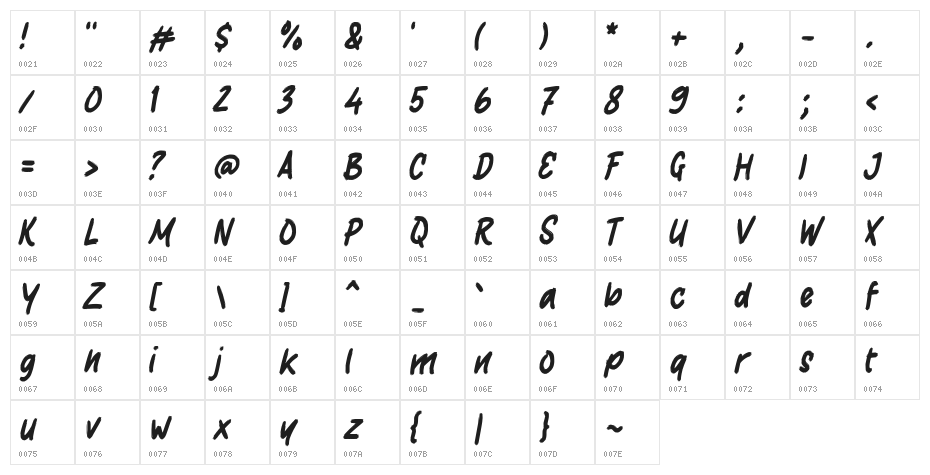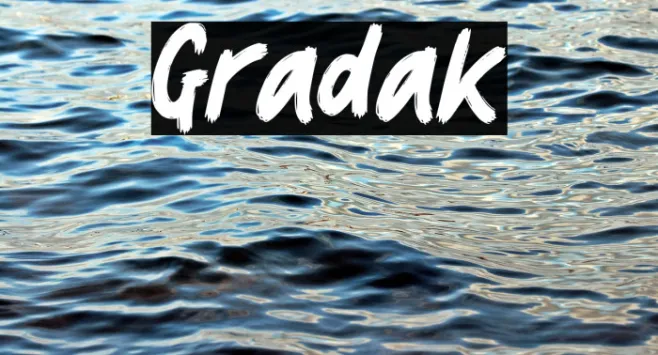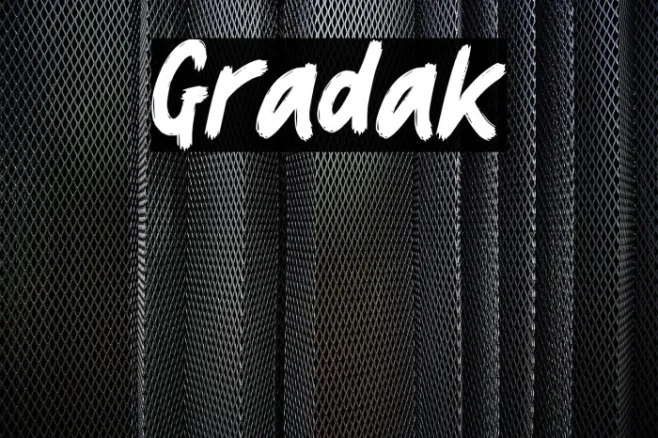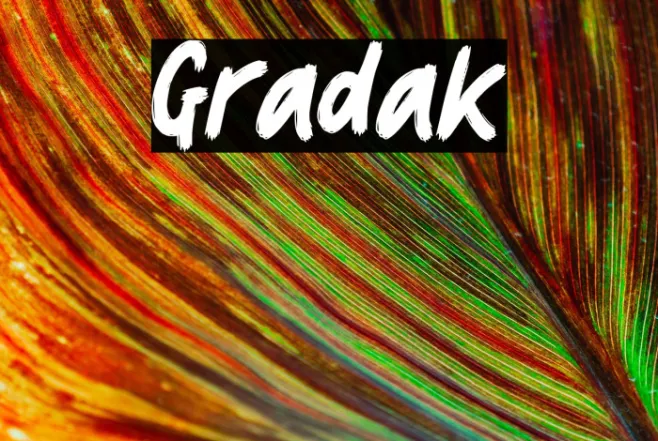
Gradak Font
Gradak Description
This font features a bold, brush-like style with a dynamic and energetic appearance. The strokes are thick and uneven, giving it a hand-painted feel that adds a sense of movement and vitality. The uppercase and lowercase letters maintain a consistent style, with slightly exaggerated curves and angles that enhance its artistic flair. Numbers and special characters are equally expressive, making this font versatile for creative projects. The overall impression is one of boldness and creativity, suitable for making a strong visual impact.
| Proposed Projects | Ideal for posters, branding, album covers, and any project requiring a bold, artistic touch. |